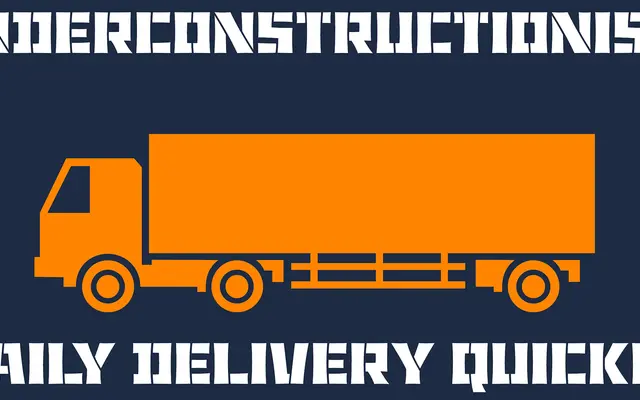
Underconstructionism
A heavy stencil display face drawn from the utilitarian signage found on construction sites, built for headlines and titles.
Thick, rugged letterforms channel the no-nonsense stencil lettering of construction site hoarding. The weight and visual density make it well-suited to display-size setting where impact matters more than finesse. A narrow use case, but it does what it sets out to do.
Heavy, rugged letterforms inspired by construction site stencil signage place this firmly in the display category with a stencil subcategory.